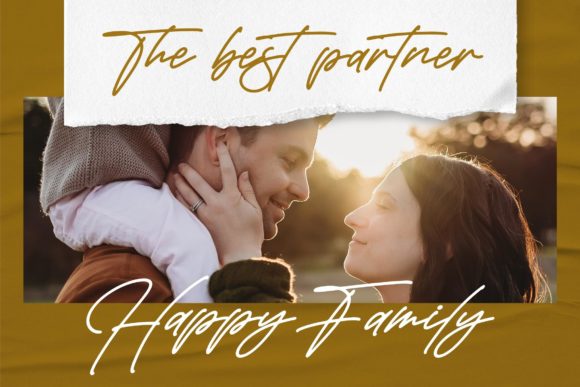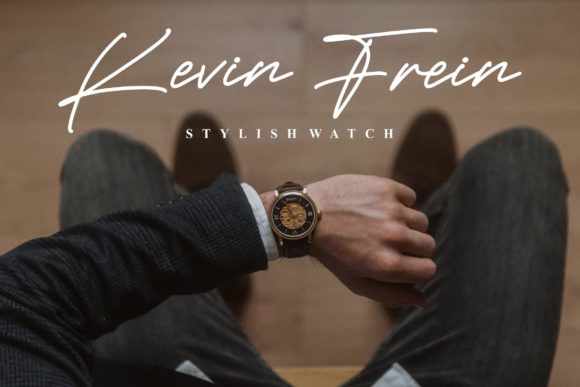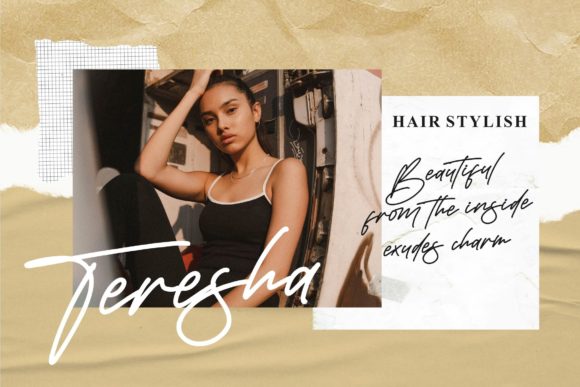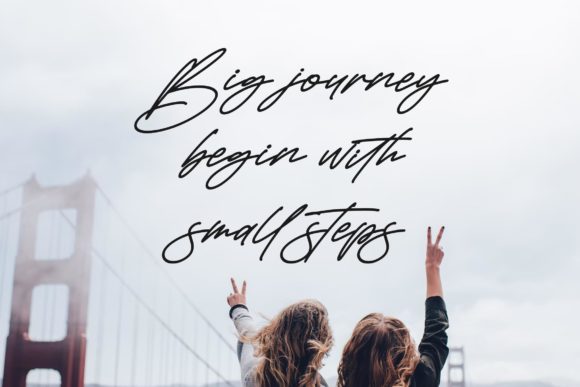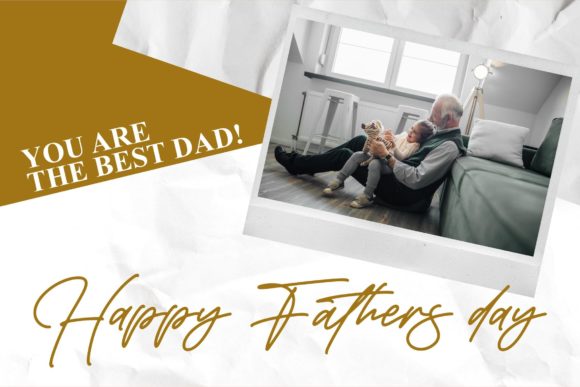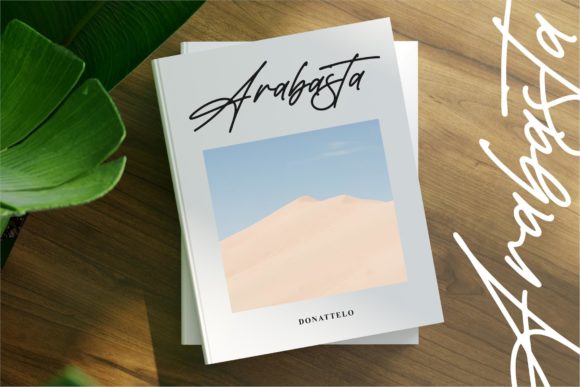
Introducing Antarlika Font: Elevate Your Designs with Elegance and Sophistication
In the world of typography, fonts play a crucial role in conveying emotions and setting the tone for any design project. Whether you’re a graphic designer, a crafty DIY enthusiast, or someone who loves to add a personal touch to their wedding invitations and love letters, finding the right font can make all the difference. This is where Antarlika Font comes into play – a stylish, beautiful, and relaxed script font that can instantly elevate your designs and make them stand out.
What Makes Antarlika Font Special?
Antarlika is not just any ordinary script font. Its unique blend of elegance and relaxation makes it perfect for a wide range of design projects. Here are a few characteristics that make Antarlika truly special:
- Delicate and Elegant: Antarlika boasts a delicate and elegant appearance that can add a touch of sophistication to any design. Its fine lines and beautiful curves make it perfect for projects that require a classy look.
- Versatile: Whether you’re working on wedding invitations, love letters, or any other design project, Antarlika can be seamlessly integrated to enhance the visual appeal.
- Easy to Read: Despite its delicate nature, Antarlika is surprisingly easy to read, making it functional as well as beautiful.
- Unique Personality: Antarlika has a unique personality that can help your designs stand out from the crowd. Its relaxed yet stylish vibe can add a personal touch to your projects.
How to Use Antarlika Font in Your Designs?
Incorporating Antarlika into your design projects is straightforward. Here are some ideas to get you started:
- Wedding Invitations: Add a touch of romance and elegance to your wedding invitations with Antarlika. It’s perfect for printing or digital invites.
- Love Letters: Make your love letters even more special with Antarlika. Its delicate look and feel can convey your emotions beautifully.
- DIY Projects: If you’re into crafting or DIY projects, Antarlika can be a great addition to your handmade cards, posters, or any other creative endeavors.
- Graphic Design: Use Antarlika in your graphic design projects to add a touch of elegance. It’s perfect for branding, packaging, or any project that requires a sophisticated look.
Tips for Maximizing the Impact of Antarlika Font
To get the most out of Antarlika, consider the following tips:
- Pair with Complementary Fonts: Combine Antarlika with simple, sans-serif fonts for a balanced look. This contrast can make your design more visually appealing.
- Adjust Size and Color: Experiment with different sizes and colors to find the perfect combination that suits your design.
- Use it Sparingly: While Antarlika is beautiful, using it sparingly can make it more impactful. Use it for headings or key messages to draw attention.
Antarlika Font is a beautiful addition to any designer’s or crafter’s toolkit. Its elegant and relaxed style makes it versatile and easy to use in a variety of projects. Whether you’re looking to add a touch of sophistication to your wedding invitations, love letters, or design projects, Antarlika can help you achieve your goals. So, why wait? Explore the possibilities with Antarlika Font today and see how it can transform your designs.
With Antarlika, you’re not just choosing a font; you’re choosing a way to express your creativity and make your designs truly memorable. So go ahead, add Antarlika to your collection, and watch your designs come to life with elegance and sophistication.